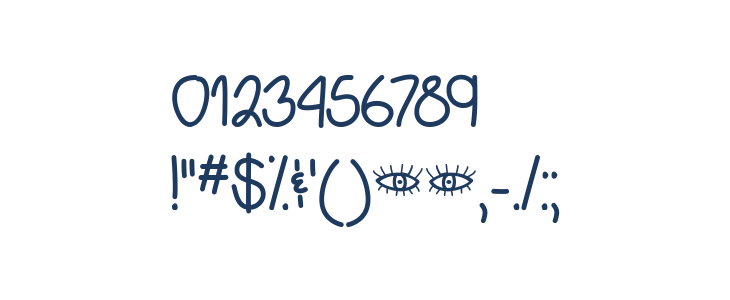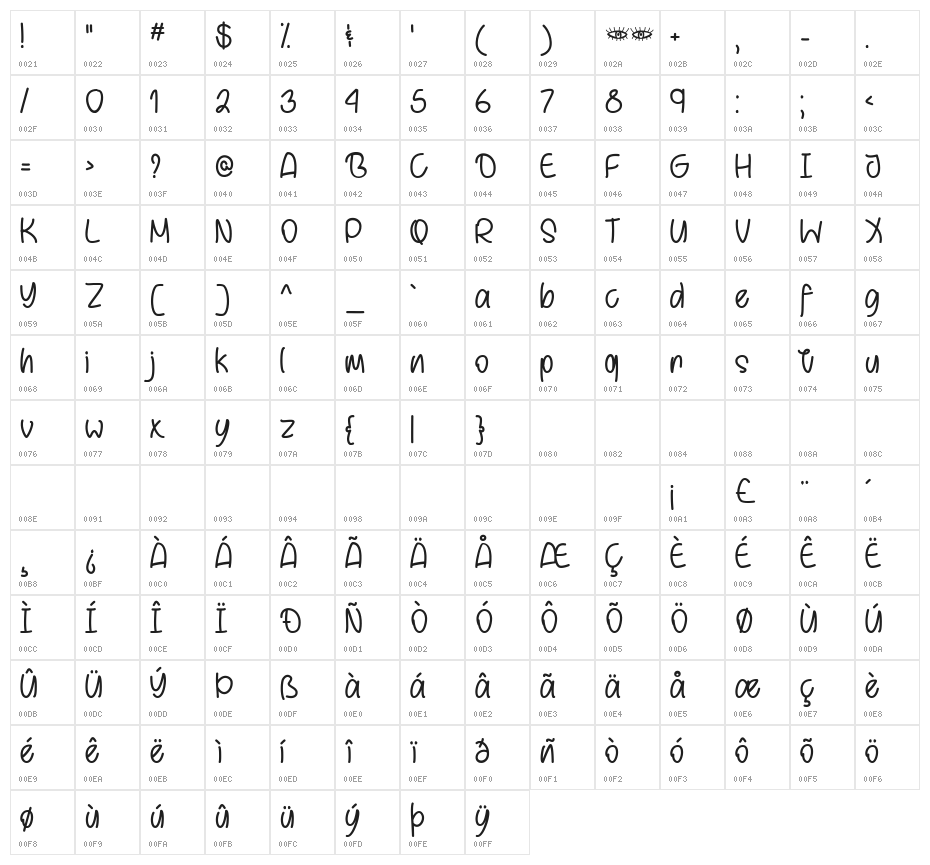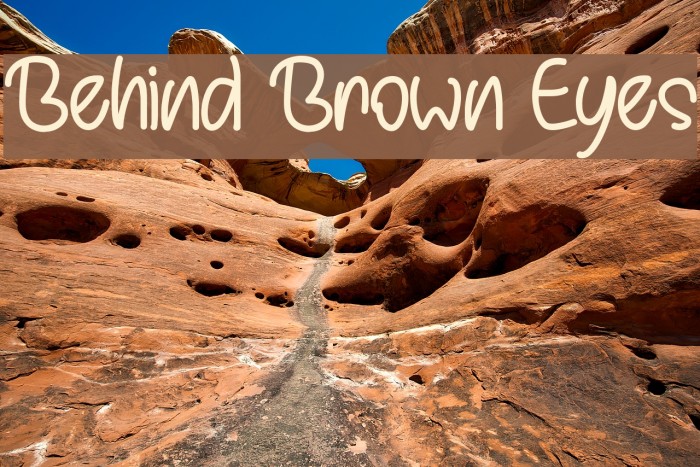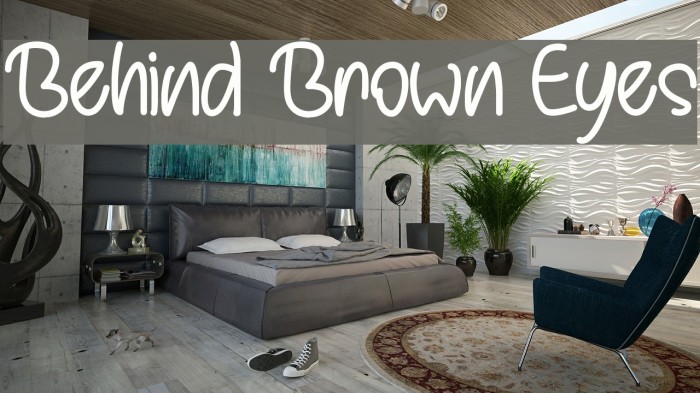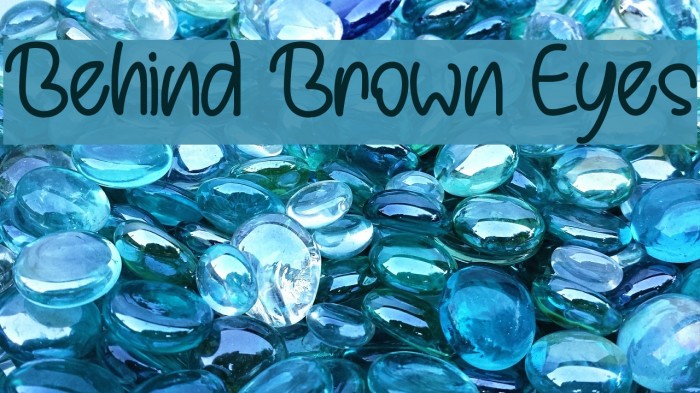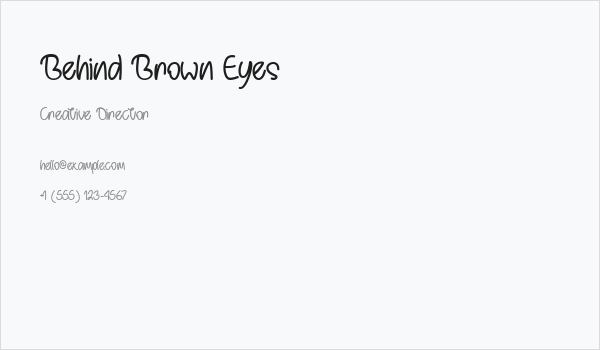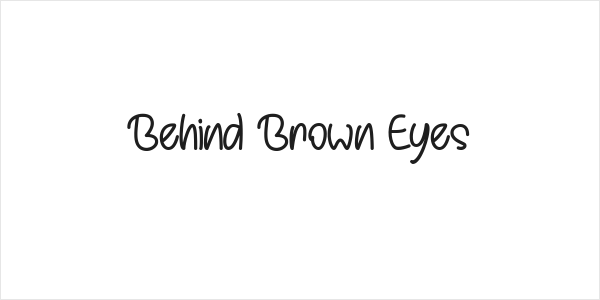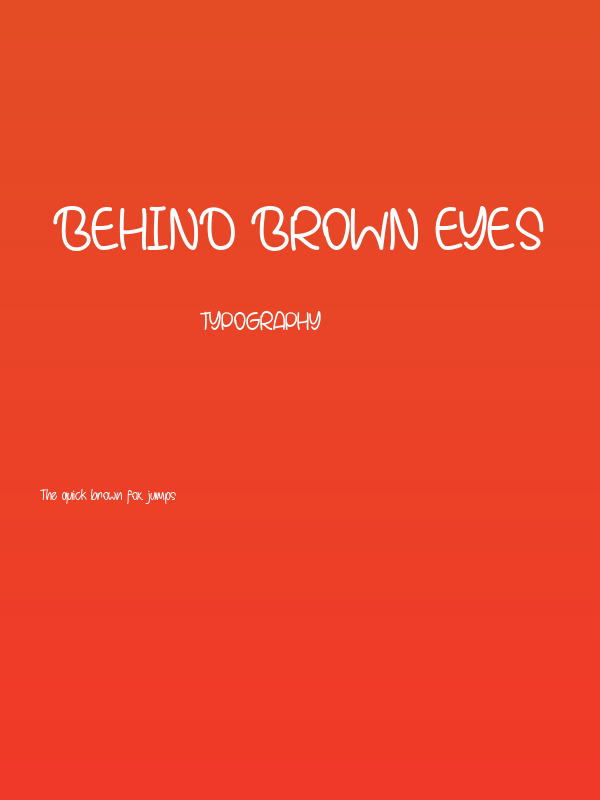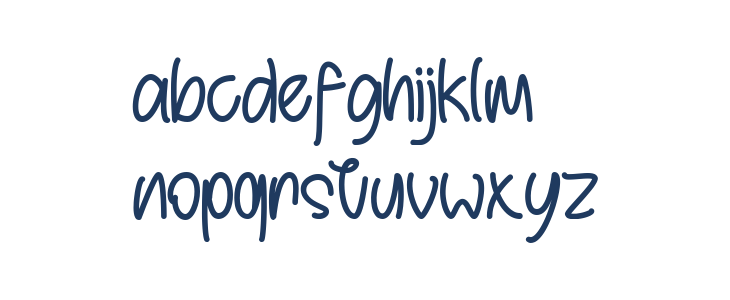
Behind Brown Eyes Font
Behind Brown Eyes Description
This playful and whimsical font features a handwritten style with smooth, rounded edges and a casual, friendly appearance. The letters are slightly irregular, giving it a natural and organic feel. The uppercase and lowercase characters maintain a consistent flow, while the numbers and special characters integrate seamlessly into the overall design. The font's informal nature makes it ideal for projects that require a personal touch or a relaxed vibe. Its legibility and charm make it suitable for a variety of creative applications.
| Proposed Projects | Greeting cards, children's books, casual branding, social media graphics, and personal invitations. |